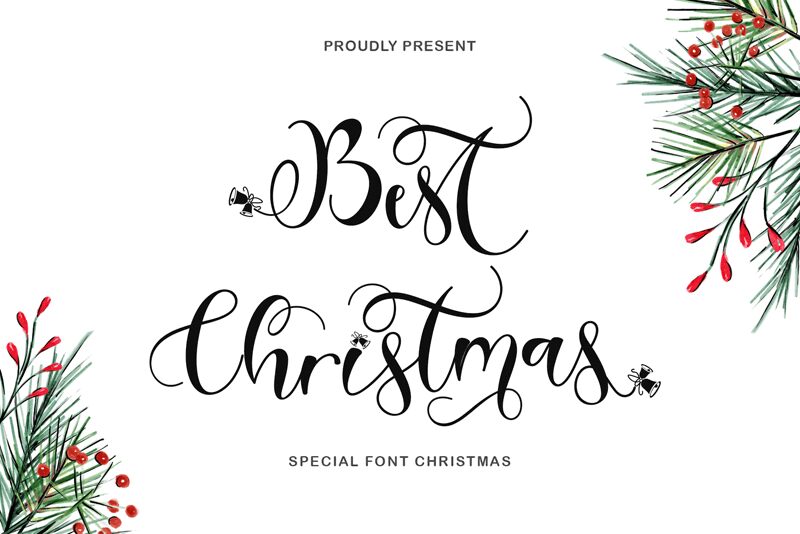
Best Christmas
Best Christmas, a captivating calligraphy-inspired font designed by Yoga Letter, radiates the spirit of the holiday season. Its flowing, elegant strokes evoke a sense of festive joy and whimsy, making it an ideal choice for creating eye-catching holiday cards, invitations, and seasonal branding.
The font's expansive letterforms lend a grand, celebratory flair, while its distinctive flourishes add a touch of artistry and charm. Whether adorning a festive greeting or embellishing a holiday-themed logo, Best Christmas effortlessly conveys the warmth and merriment of the most wonderful time of the year.
Its versatility allows it to seamlessly transition from formal to playful applications, making it a versatile addition to any designer's toolkit.